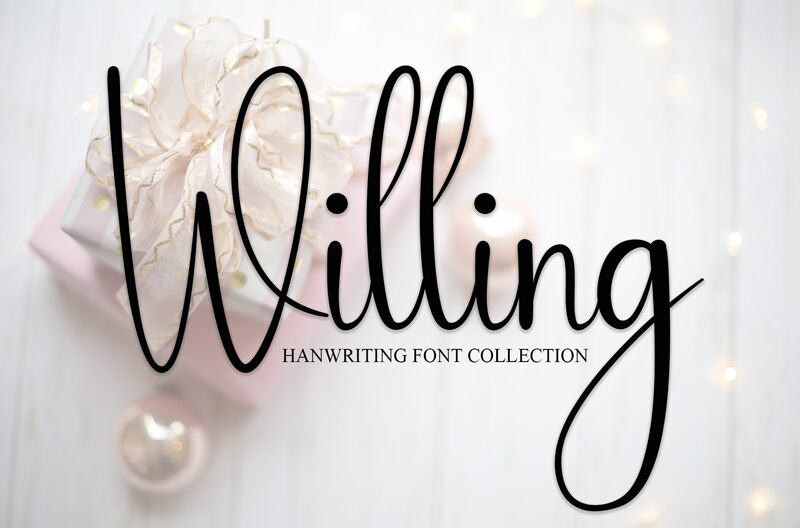
Willing font
Willing
This font combines a classy calligraphic influence with a contemporary and fresh feel. Its versatility appeals to a wide range of creative projects, making it suitable for letterheads, titles, and stationery.